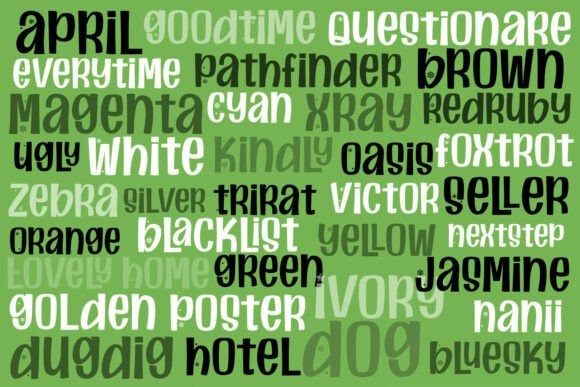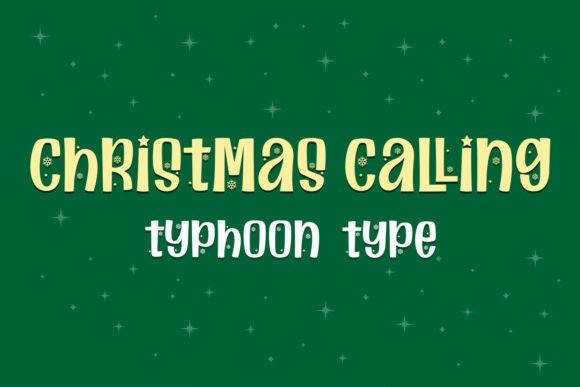
Christmas Calling Font
Christmas Calling Font is a cheerful and playful display font designed to brighten up your holiday creations.With rounded letterforms, festive sparkles, and charming snowflake details, this font brings the joyful spirit of Christmas into every word. Its friendly curves and whimsical shapes make it perfect for designs that need a touch of fun, warmth, and seasonal magic.
Whether you’re creating greeting cards, gift tags, party invitations, stickers, posters, or social media graphics, Christmas Calling adds an instant festive charm. Easy to read yet full of personality, it’s the ideal font for anyone looking to create cute, joyful, and eye-catching Christmas-themed designs.
Let your holiday projects sparkle with Christmas Calling — a font filled with joy, playfulness, and wintertime wonder. ✨🎅